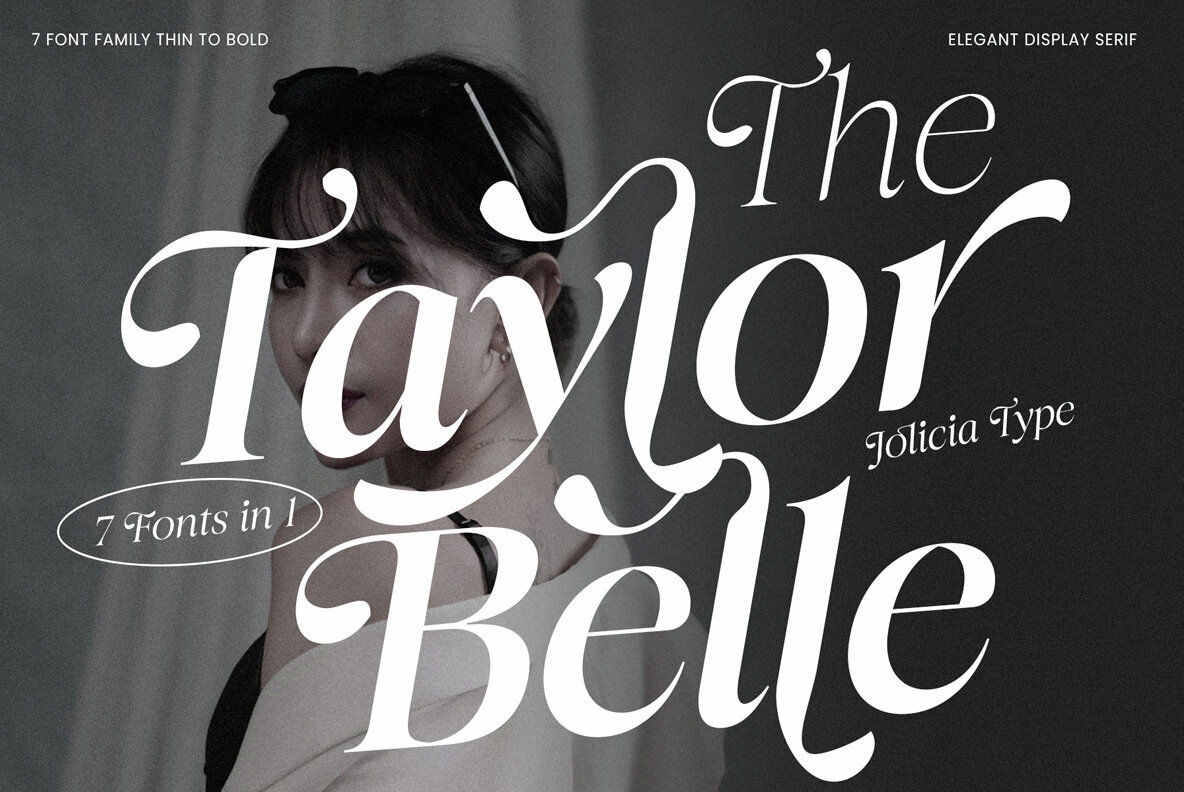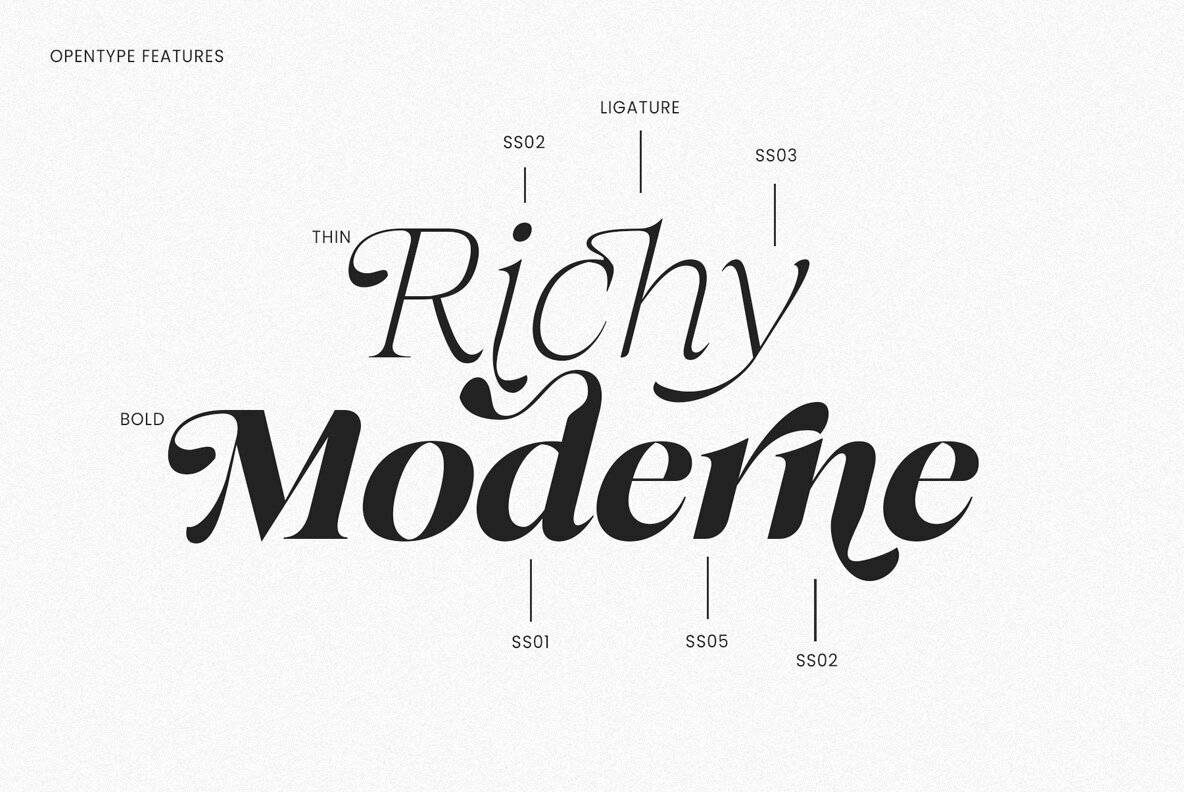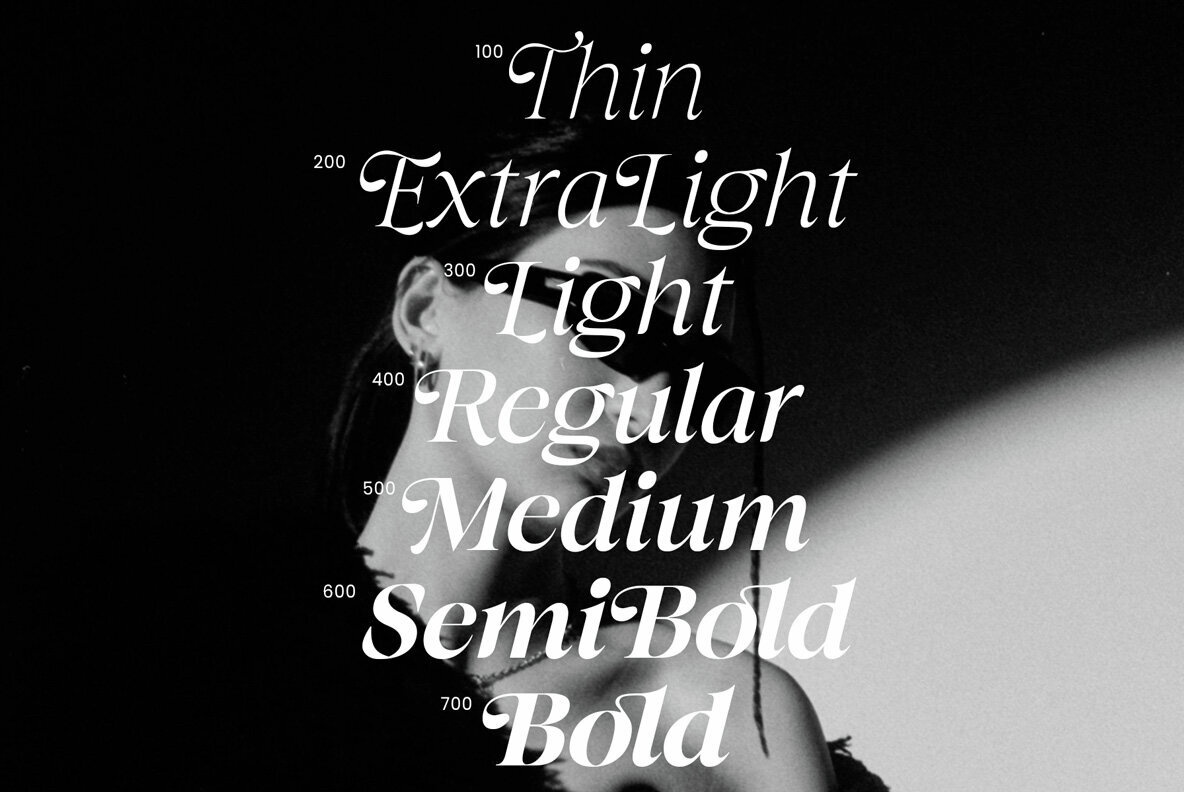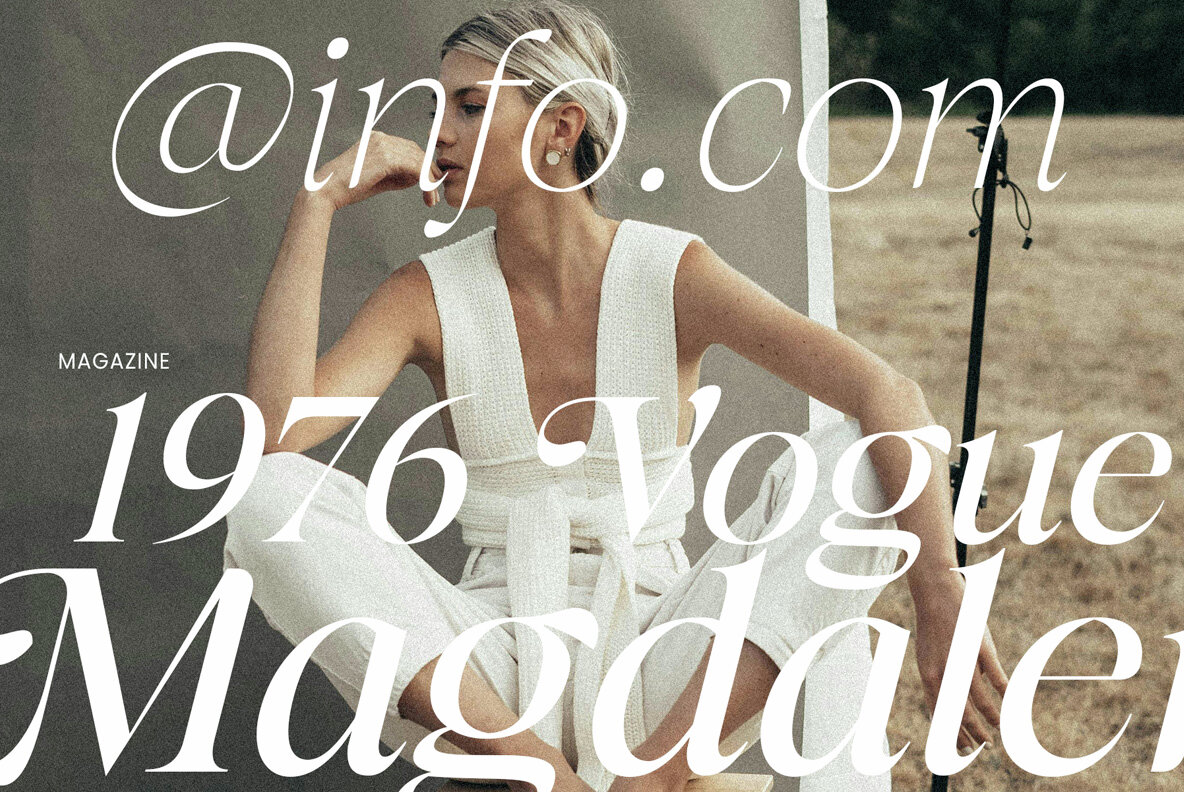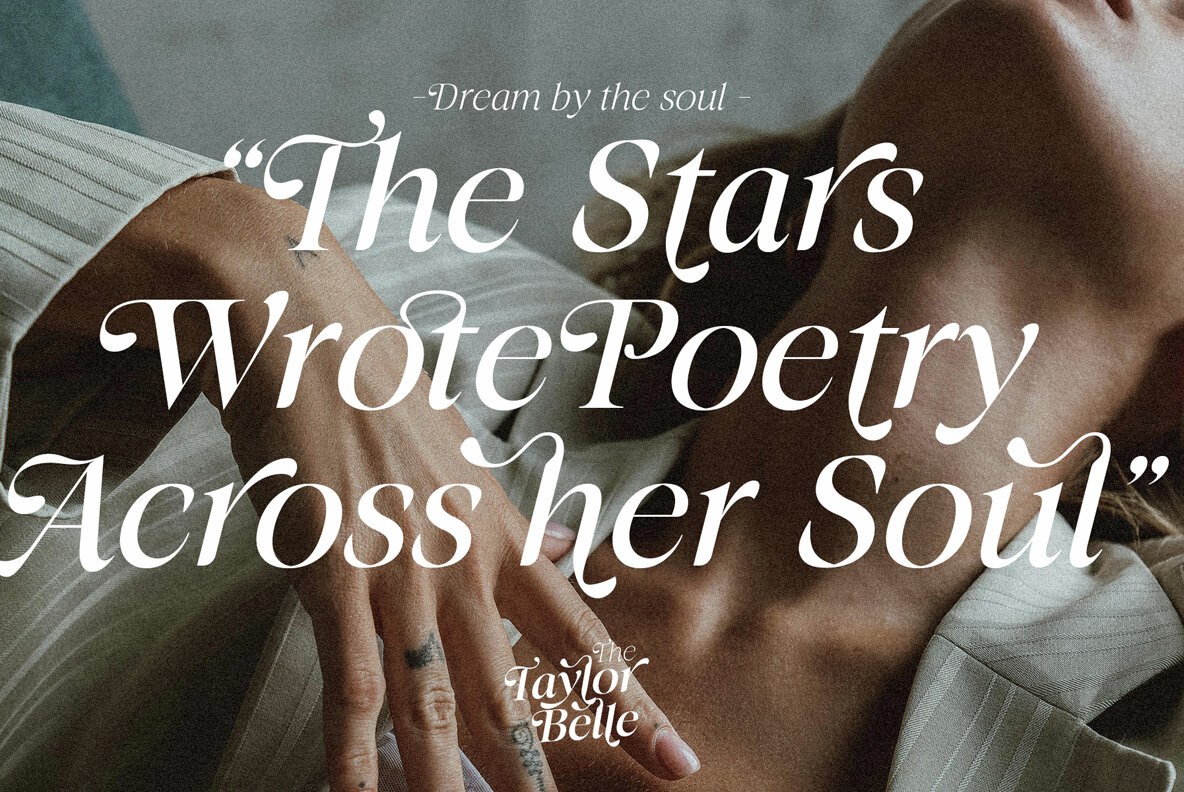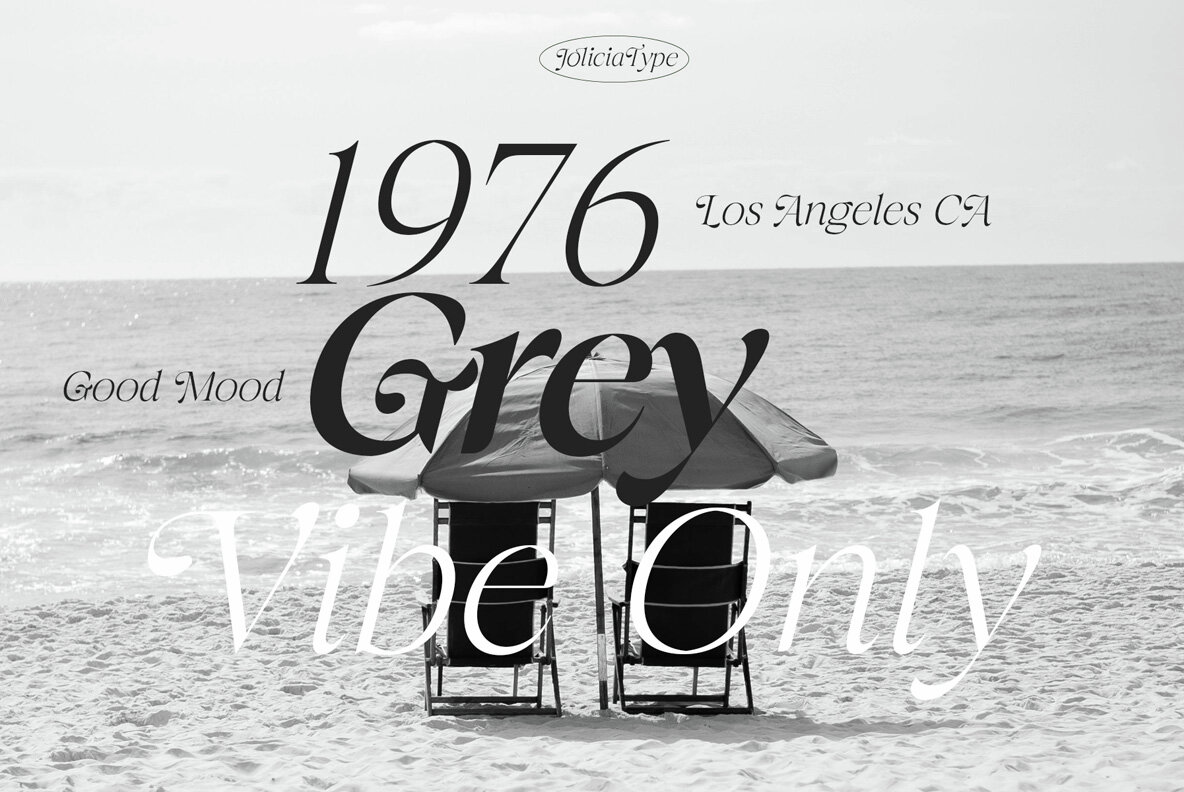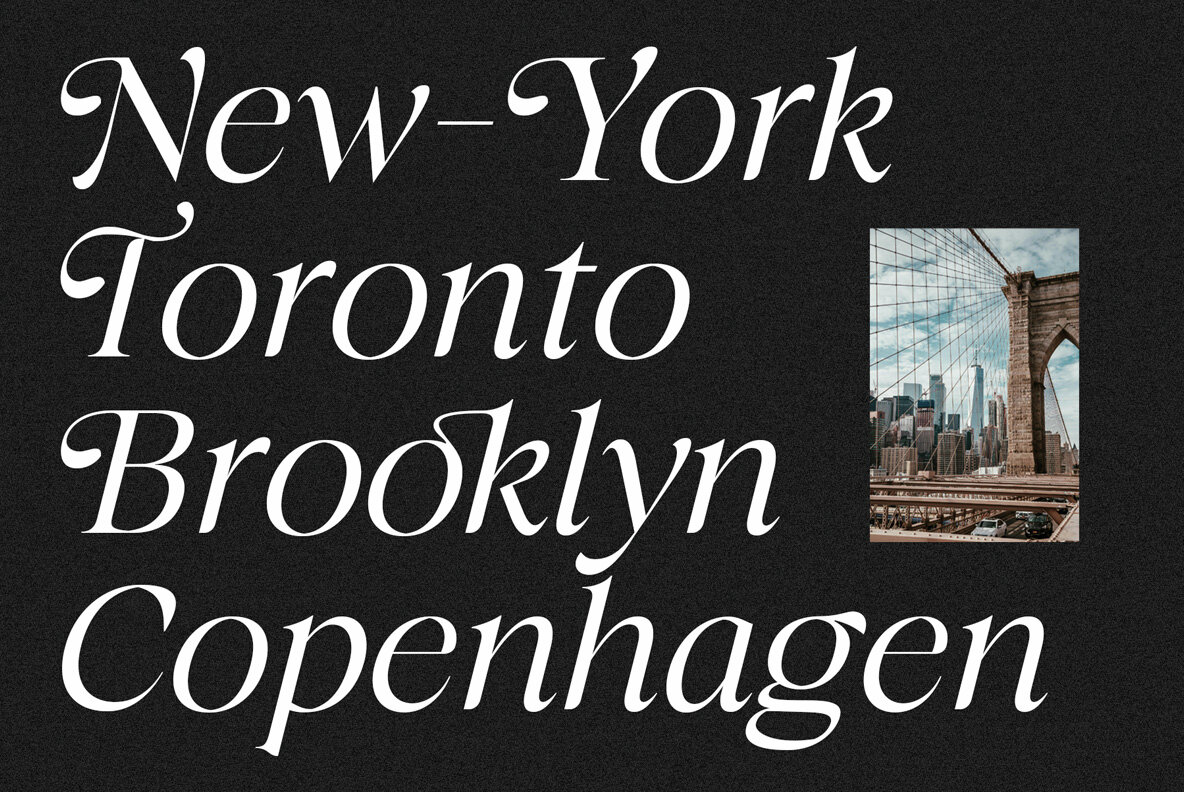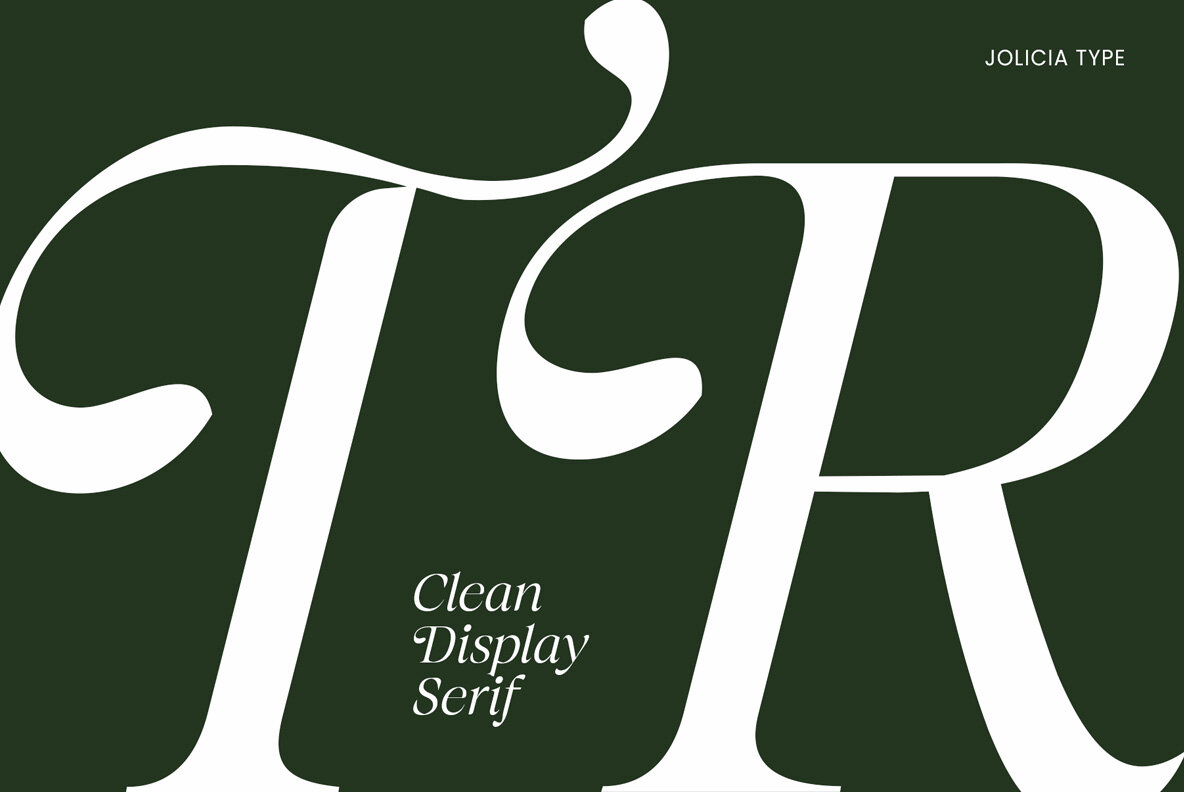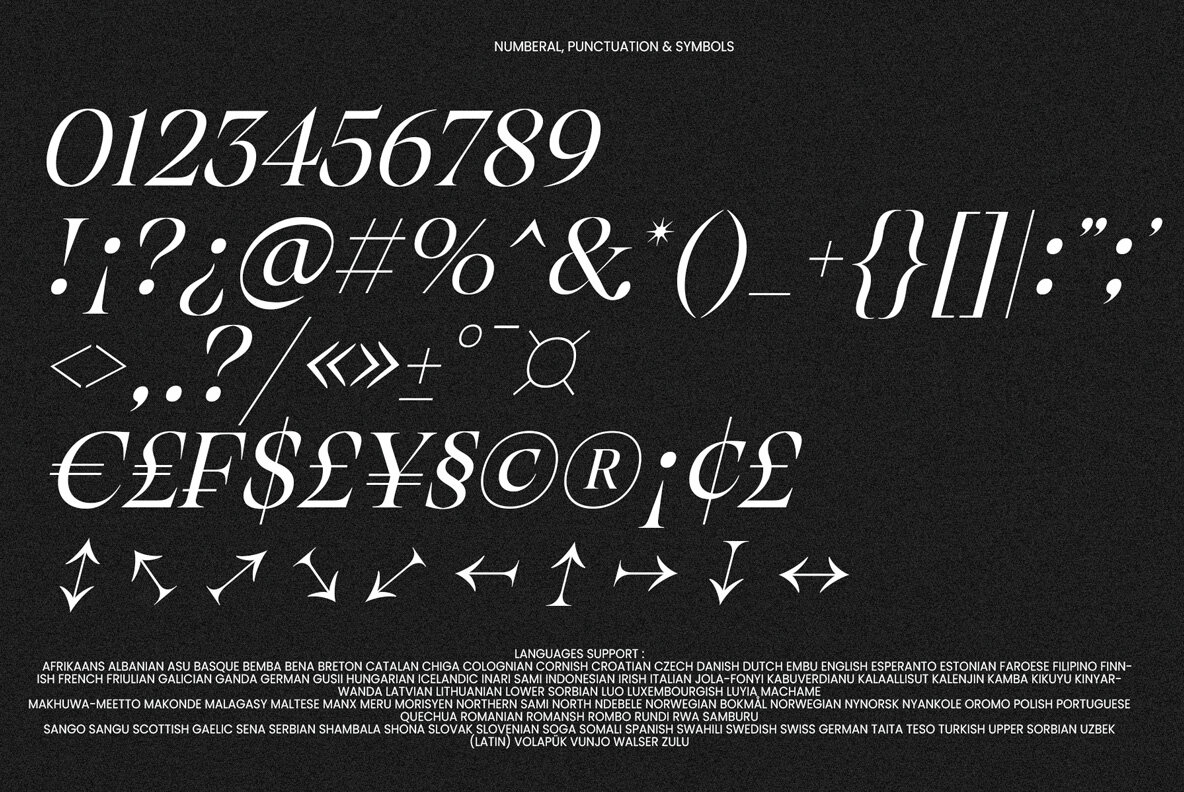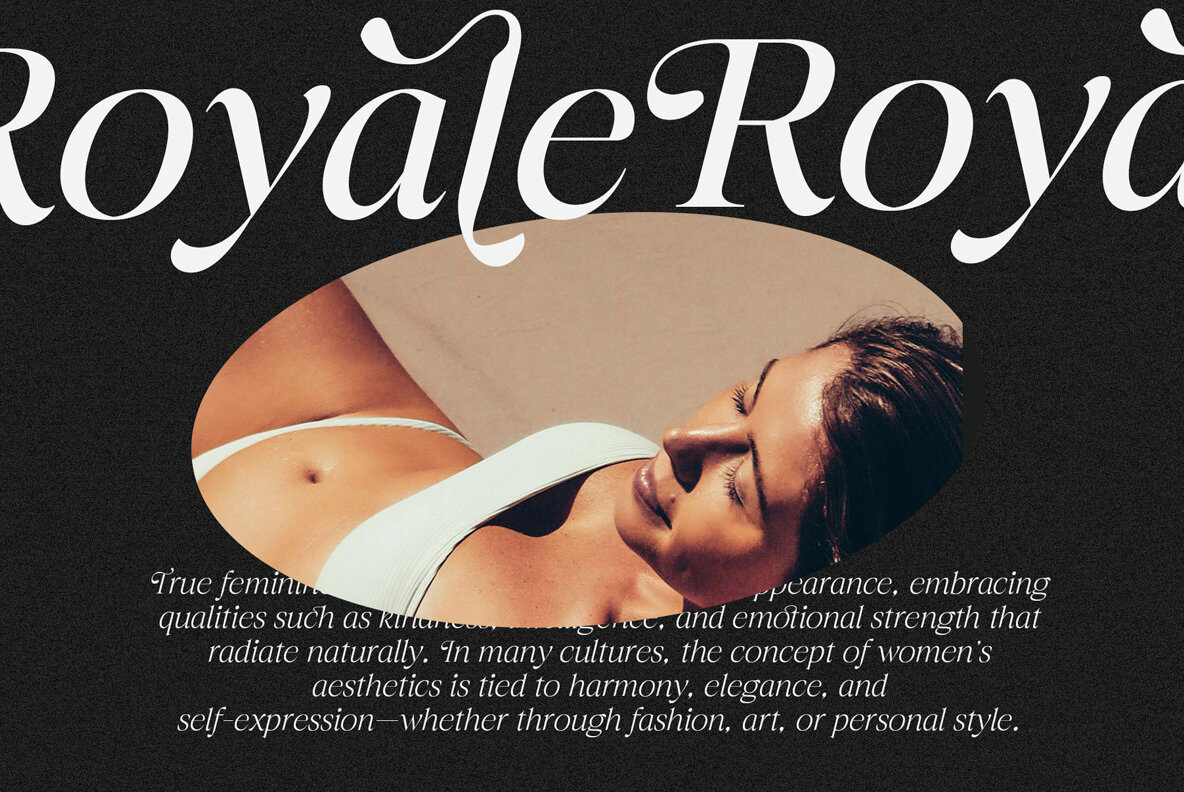
The Taylor Belle Font
Taylor Belle is a mesmerizing serif display font that exudes femininity and timeless elegance. Crafted with graceful curves and refined details, its uppercase letters are adorned with delicate swirls and flowing strokes, lending a sophisticated touch to any design. With 7 flexible weights ranging from Thin to Bold, Taylor Belle is perfect for crafting both minimalist and bold design concepts. Elevate your creative endeavors with 17 OpenType alternates and 8 elegant ligatures, offering endless typographic exploration for a unique and artistic flair. The true italic style enhances its allure, ideal for adding romance and sophistication to invitations, branding, and editorial layouts. Taylor Belle is the ultimate choice for fashion, beauty, wedding stationery, and high-end branding projects demanding a luxurious, modern aesthetic.Taylor Belle - Captivating Serif Display Font